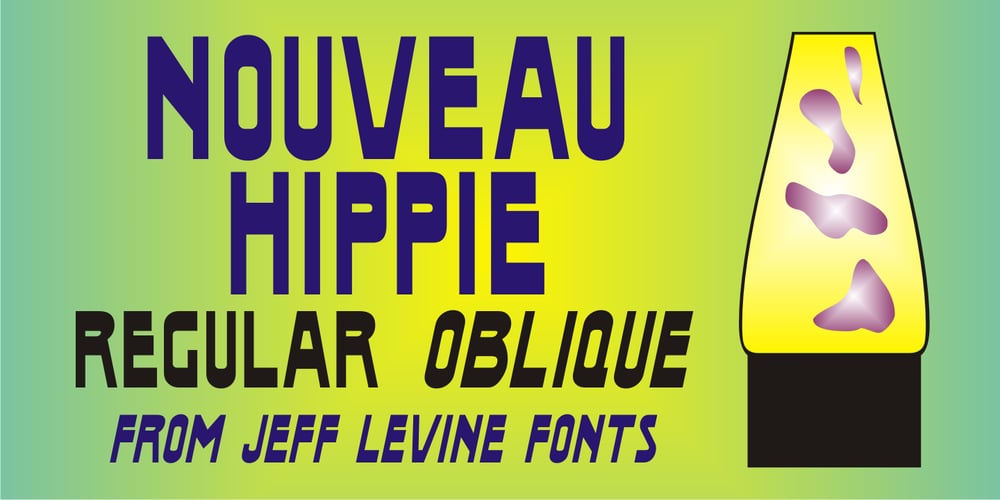
Nouveau Hippie JNL Font Family was designed by Jeff Levine and published by Jeff Levine. Nouveau Hippie JNL contains 2 styles and family package options. The cover of the 1907 sheet music for “I’d Rather Twostep Than Waltz, Bill” was hand lettered in an Art Nouveau sans serif alphabet. During the hippie counter-culture movement of the 1960s, rock posters, album covers and other printed ephemera of the time embraced the styles of lettering and art made popular during the early 1900s. It seemed only fitting to name this type design Nouveau Hippie JNL as an homage to both eras. The font is available in both regular and oblique versions.